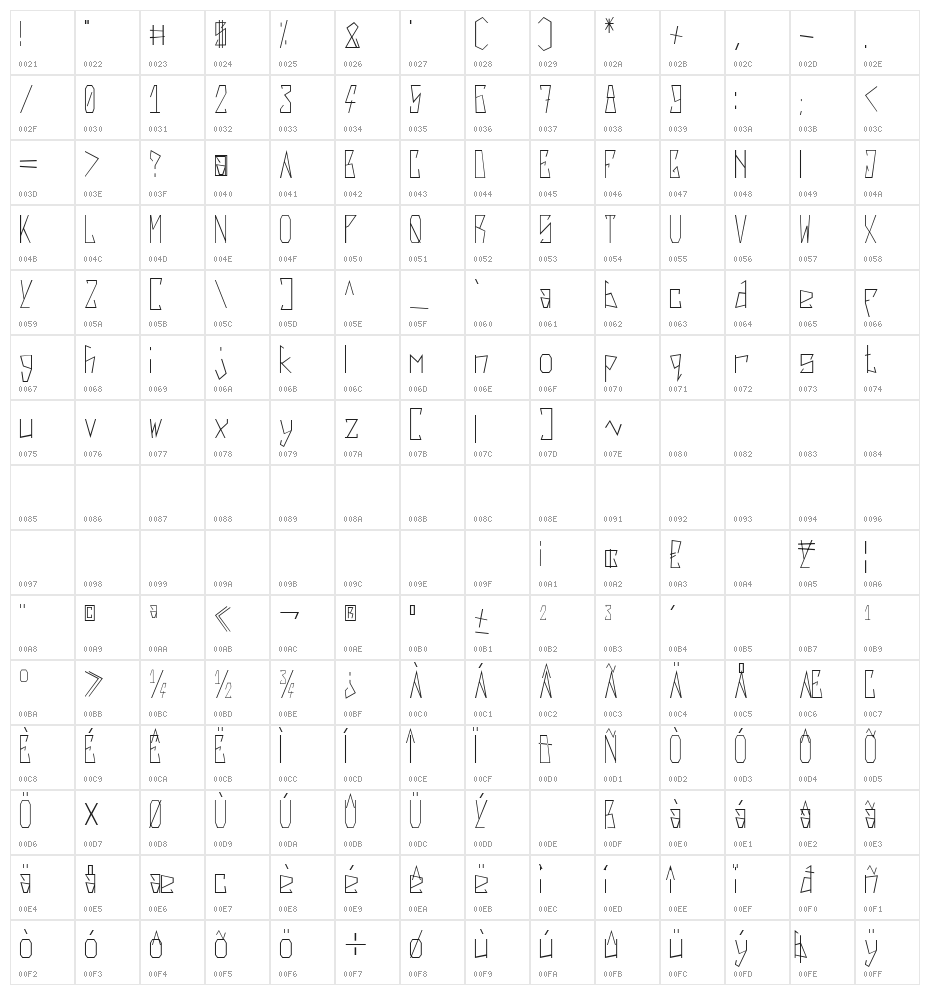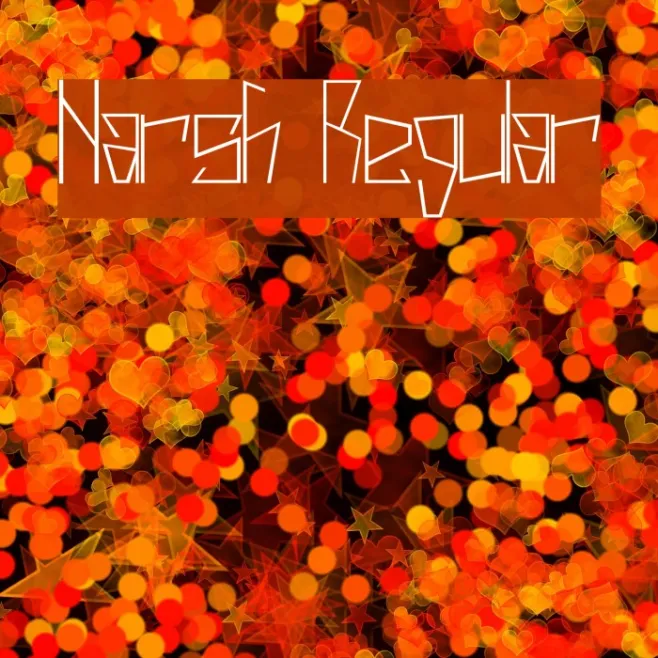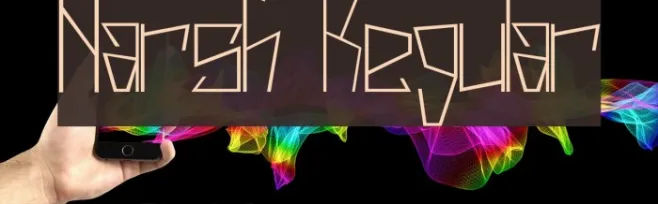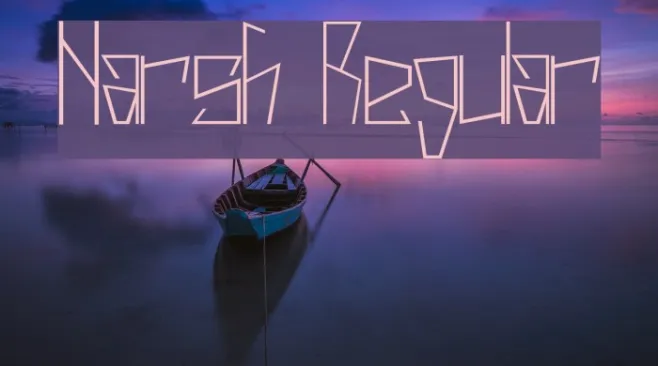
Harsh Regular Font
Harsh Regular Description
This font features a highly geometric and angular design, characterized by sharp lines and a distinct lack of curves. Each character is constructed with a series of straight lines, giving it a futuristic and edgy appearance. The uppercase letters are particularly striking, with unique shapes that create a sense of movement and dynamism. The lowercase letters maintain this angular style, ensuring consistency throughout the typeface. Numbers and special characters follow the same design principles, making the font suitable for projects that require a modern and unconventional look. The overall aesthetic is bold and attention-grabbing, ideal for making a statement.
| Proposed Projects | Ideal for branding, posters, album covers, and any project needing a modern, standout typeface. |